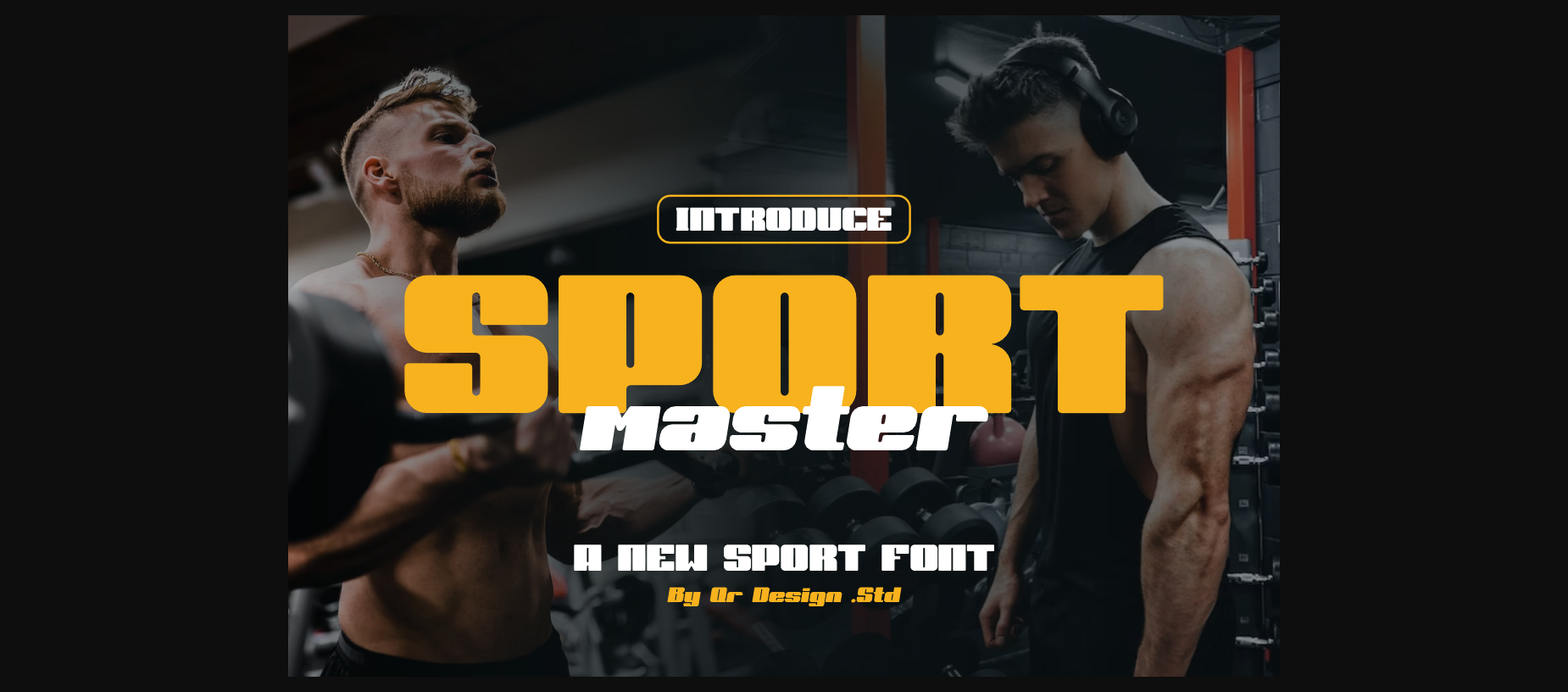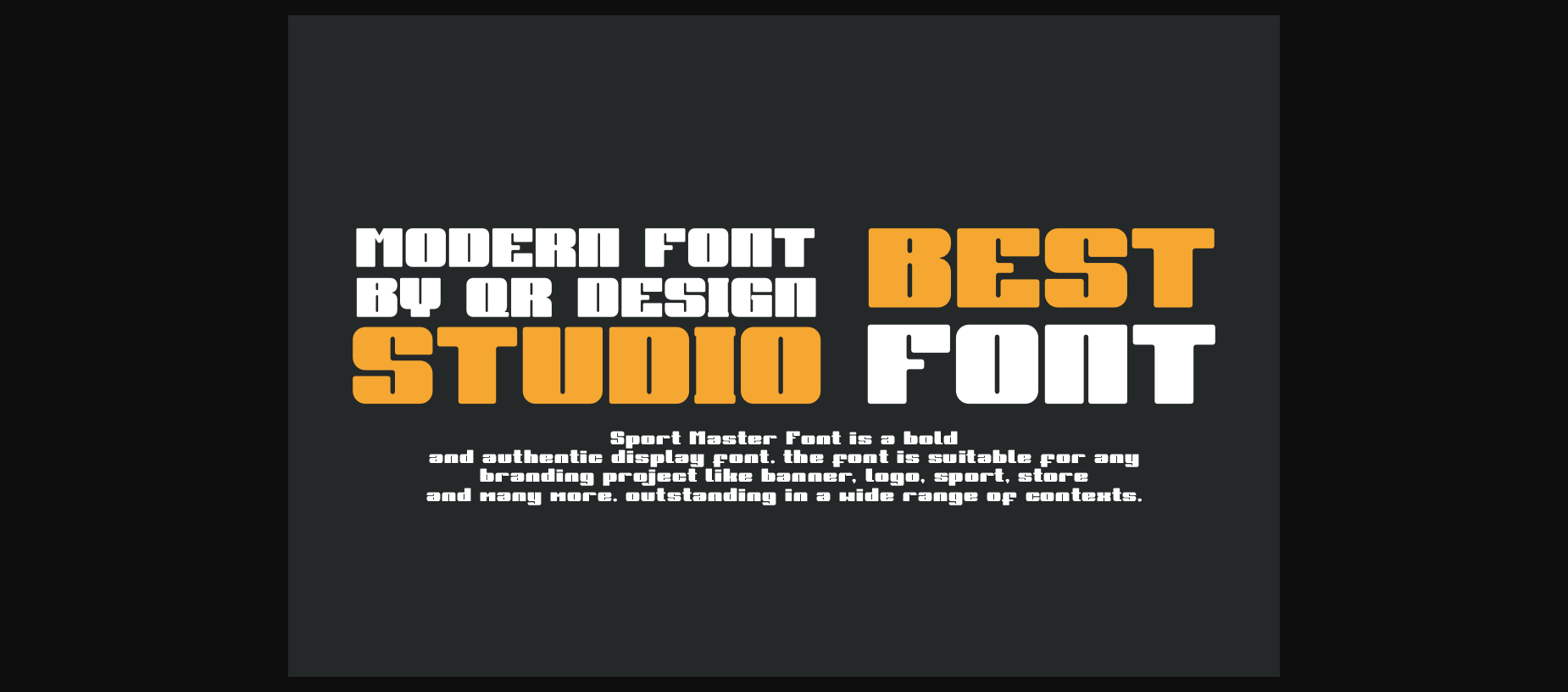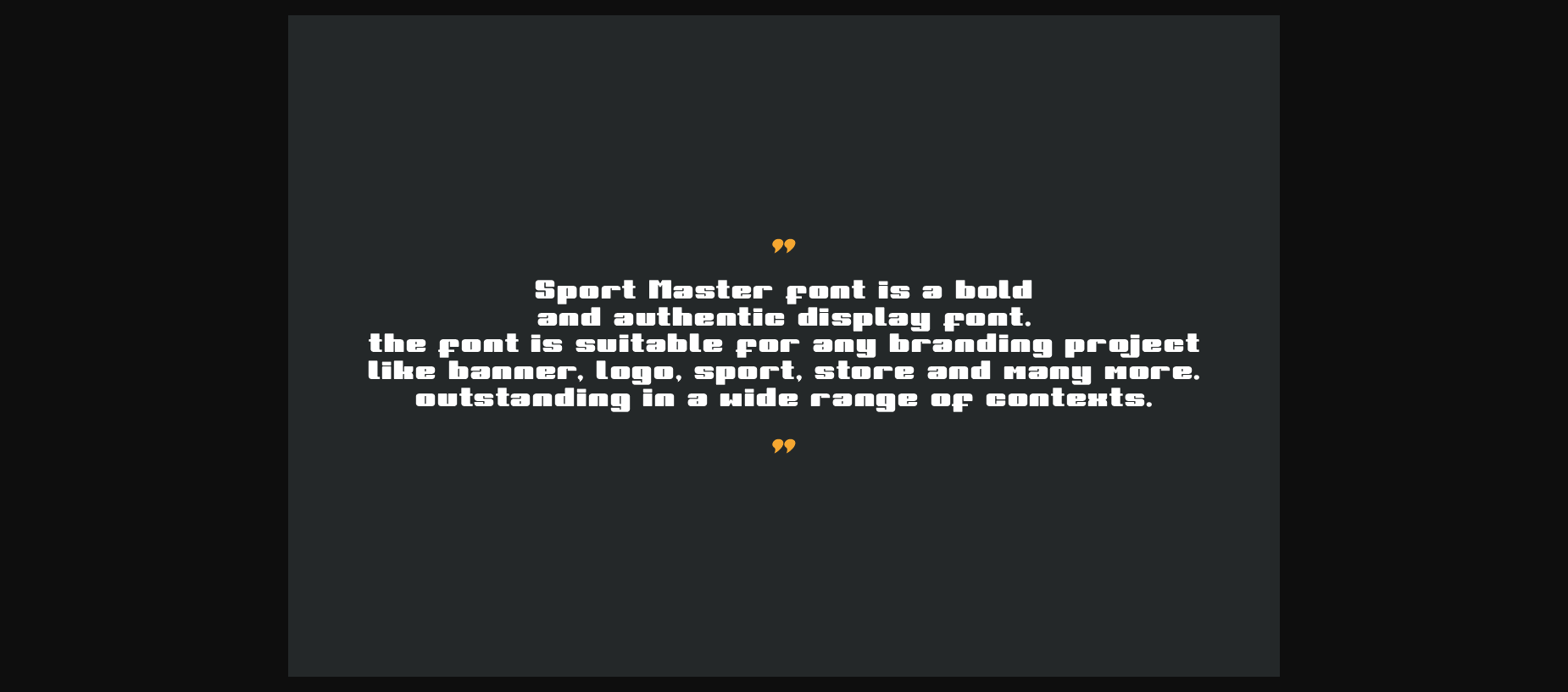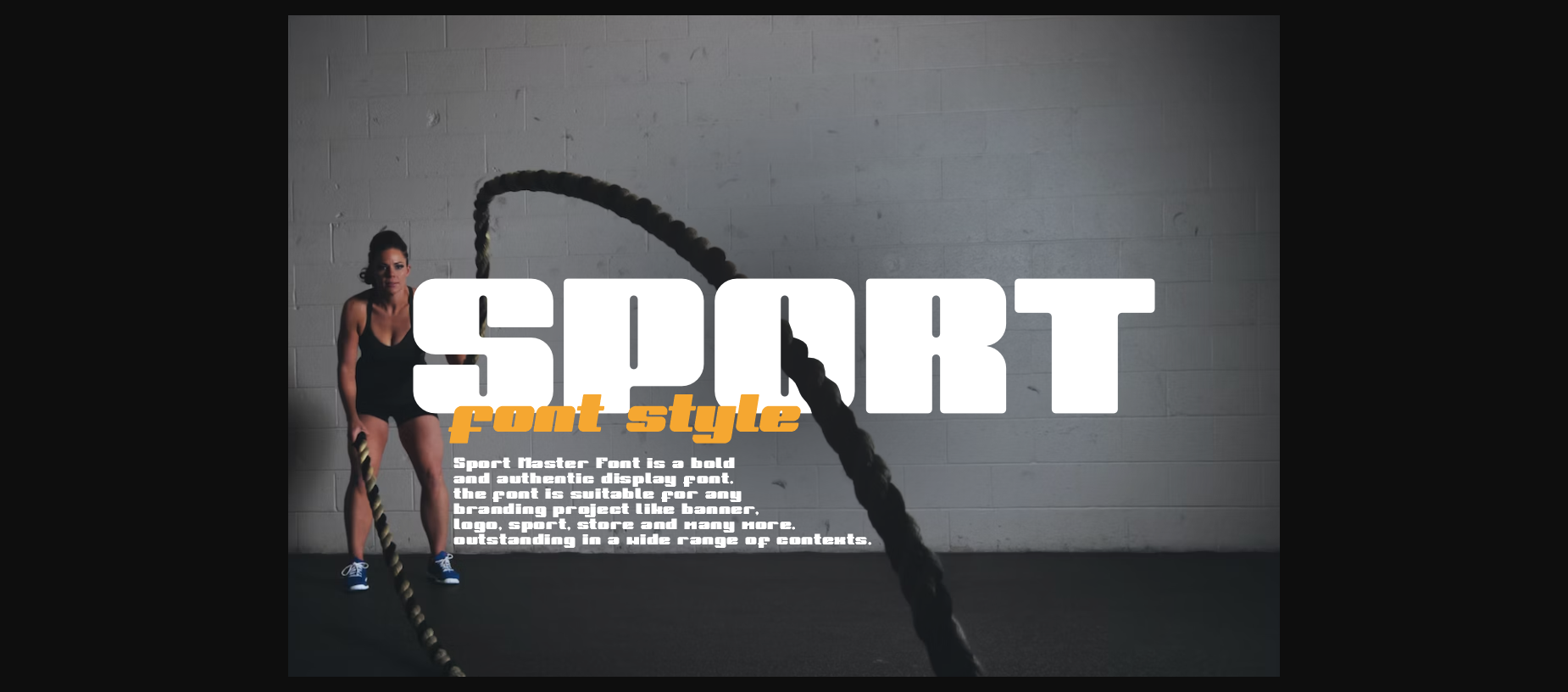
Sport Master Font
About Sport Master Font
Sport Master is a bold, all caps sans serif font featuring the perfect amount of trendiness. Whether you’re using it for crafting, digital designing, presentations or greeting cards making, it’s perfect!